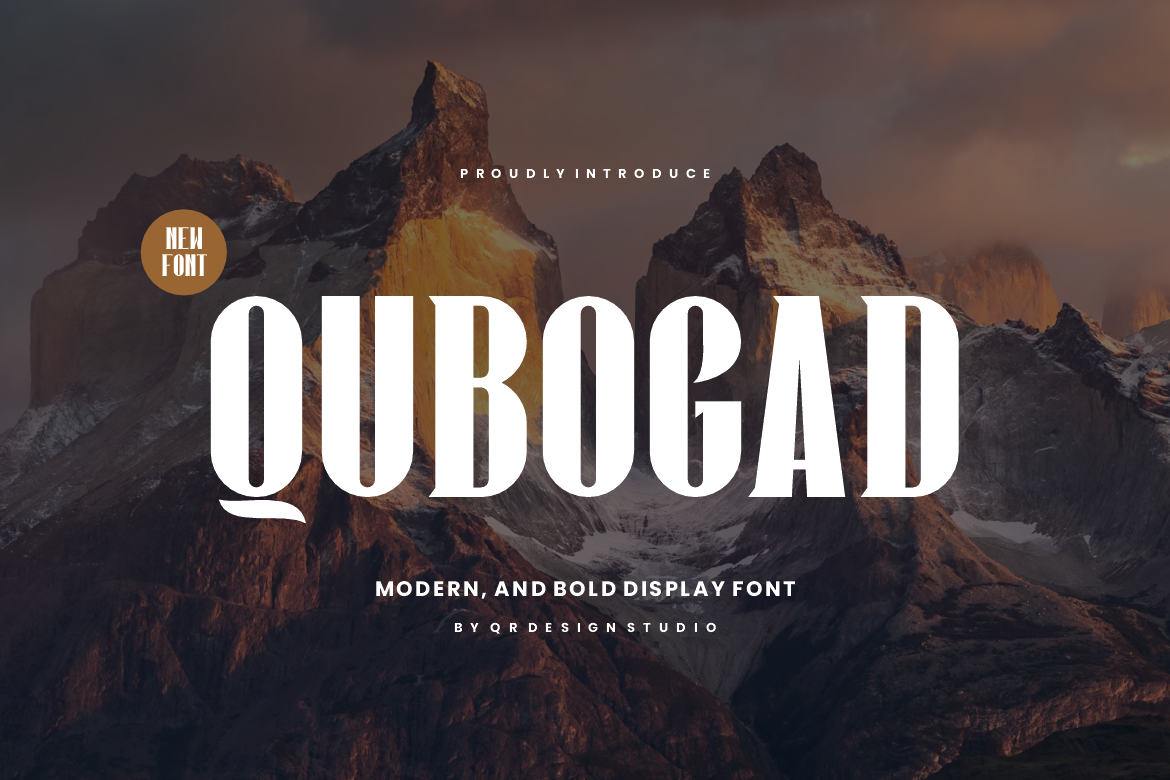
Qubogad - Thick & Tall Font
Qubogad Font is a bold and authentic display font. The font is suitable for any branding project like poster, logo, sport, and many more. Outstanding in a wide range of contexts.